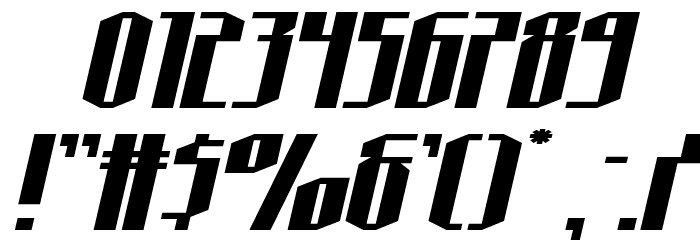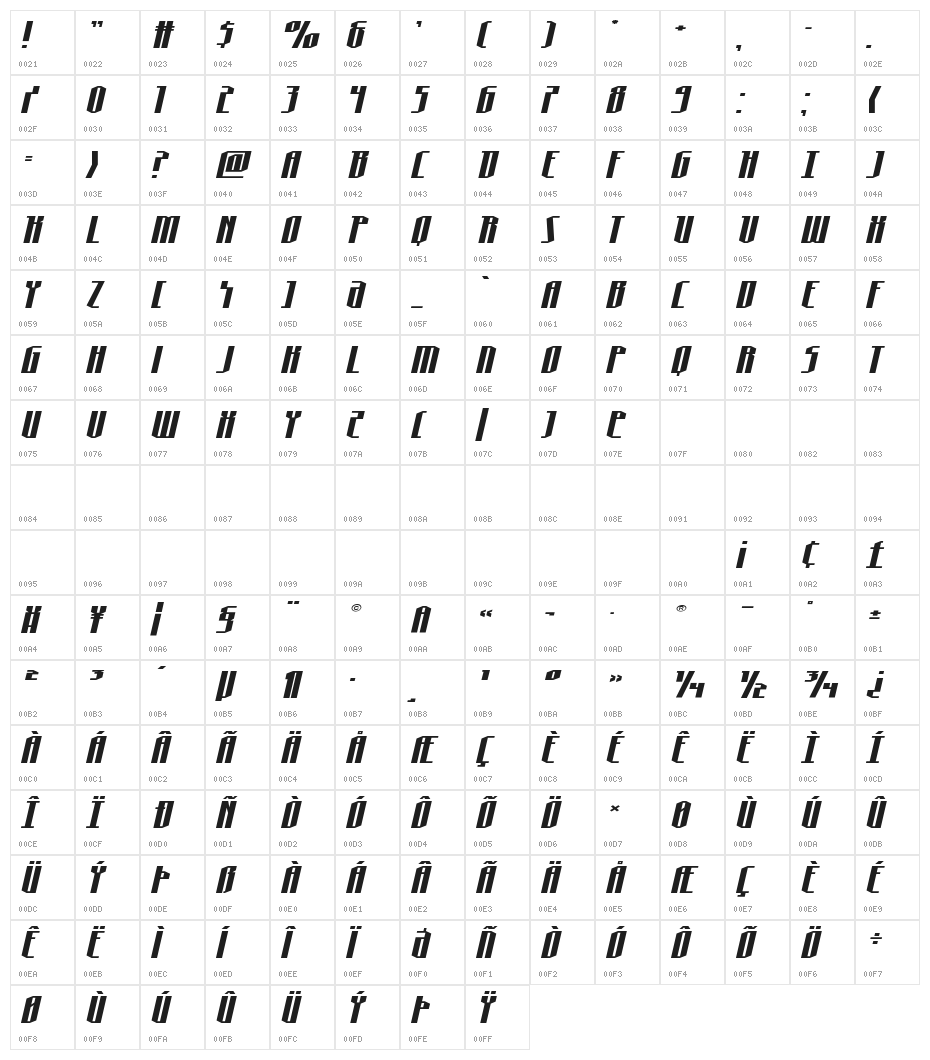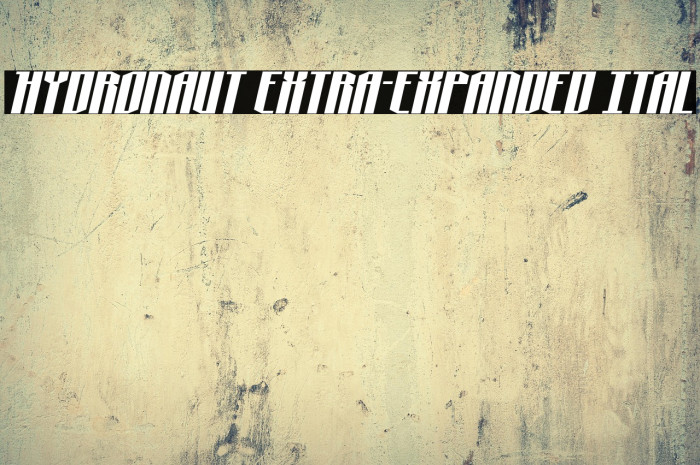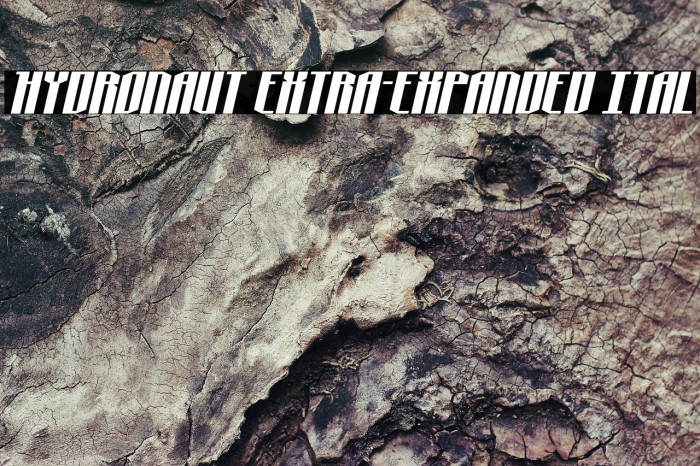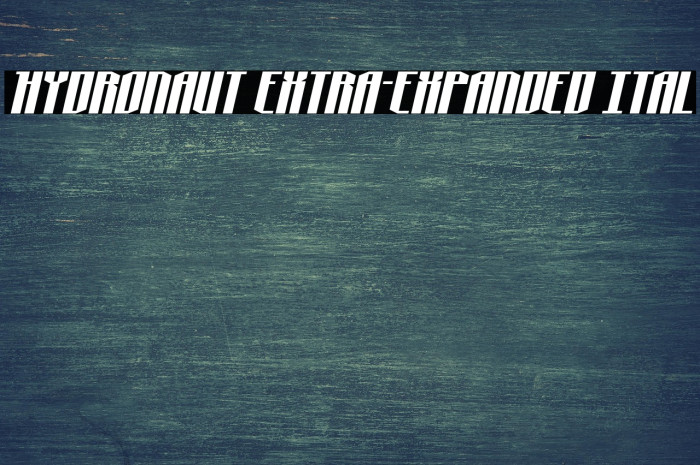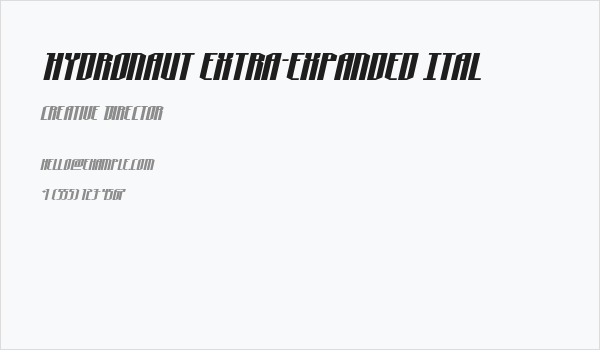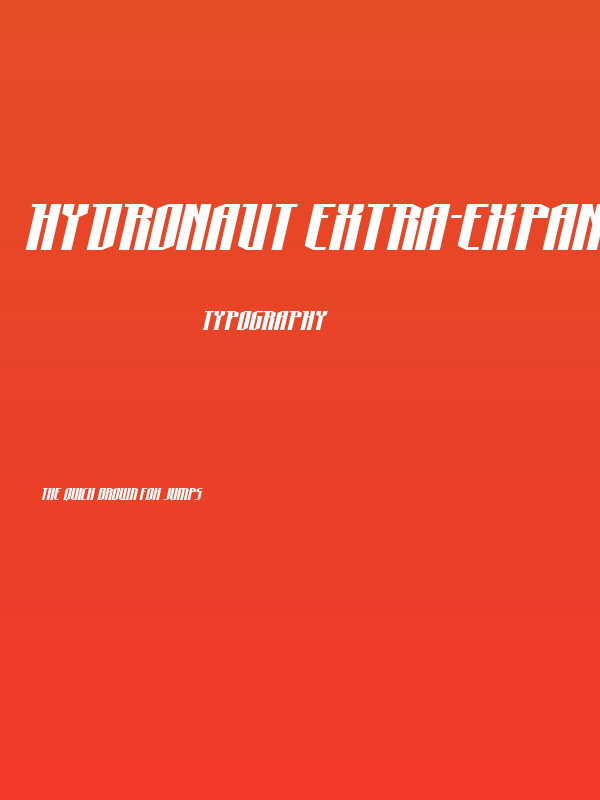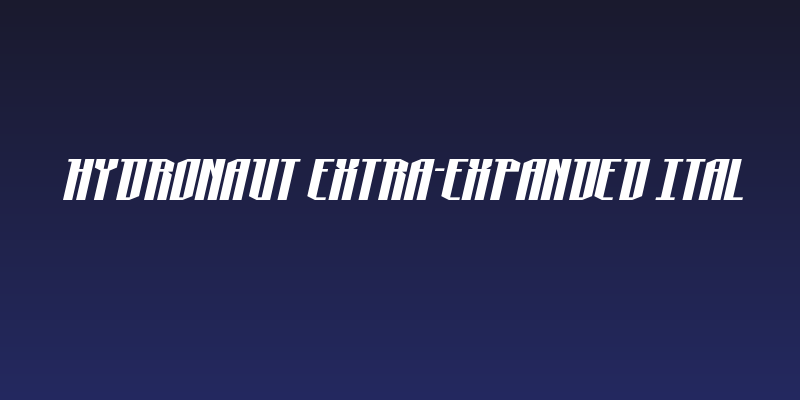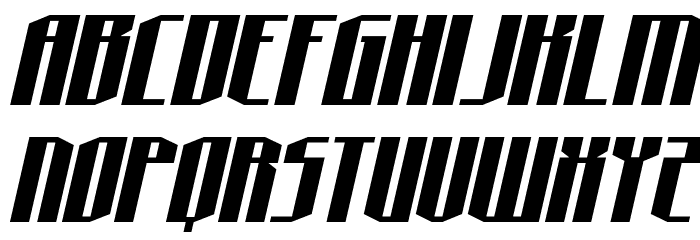
Hydronaut Extra-Expanded Ital Font
Hydronaut Extra-Expanded Ital Description
This font features a bold and dynamic design with an expanded width and italicized style. The characters are sharply angled, giving a futuristic and edgy appearance. The strokes are consistent in thickness, providing a uniform look across all characters. The uppercase and lowercase letters maintain a cohesive style, with the uppercase being more prominent. Numbers and special characters are designed to match the overall aesthetic, ensuring a seamless integration in any text. The font's unique style makes it stand out, perfect for projects that require a modern and bold statement.